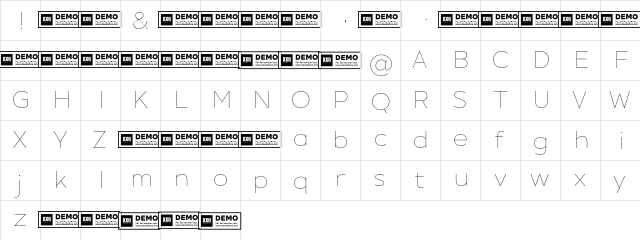
XXII Geom DEMO Thin
Design Context for XXII Geom DEMO Typeface
XXII Geom DEMO is a composed and adaptable typeface that performs quietly and consistently across a wide range of design contexts. Its slender proportions lend an understated elegance to any composition.